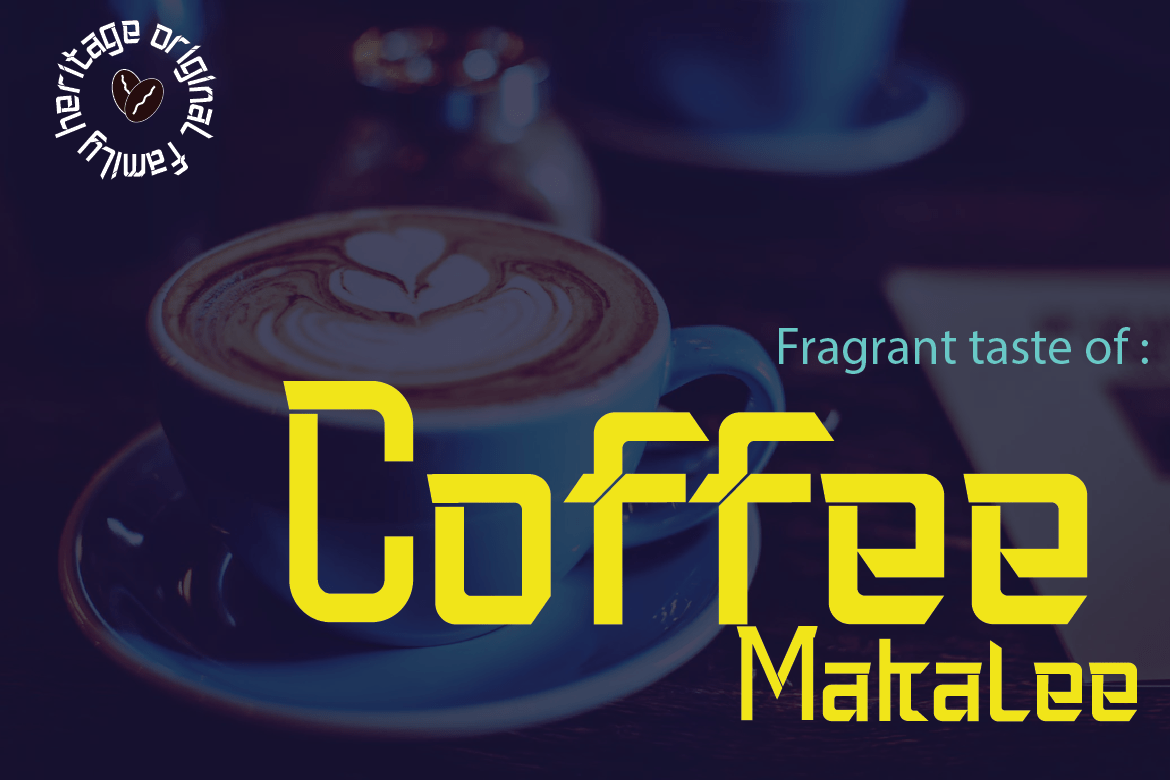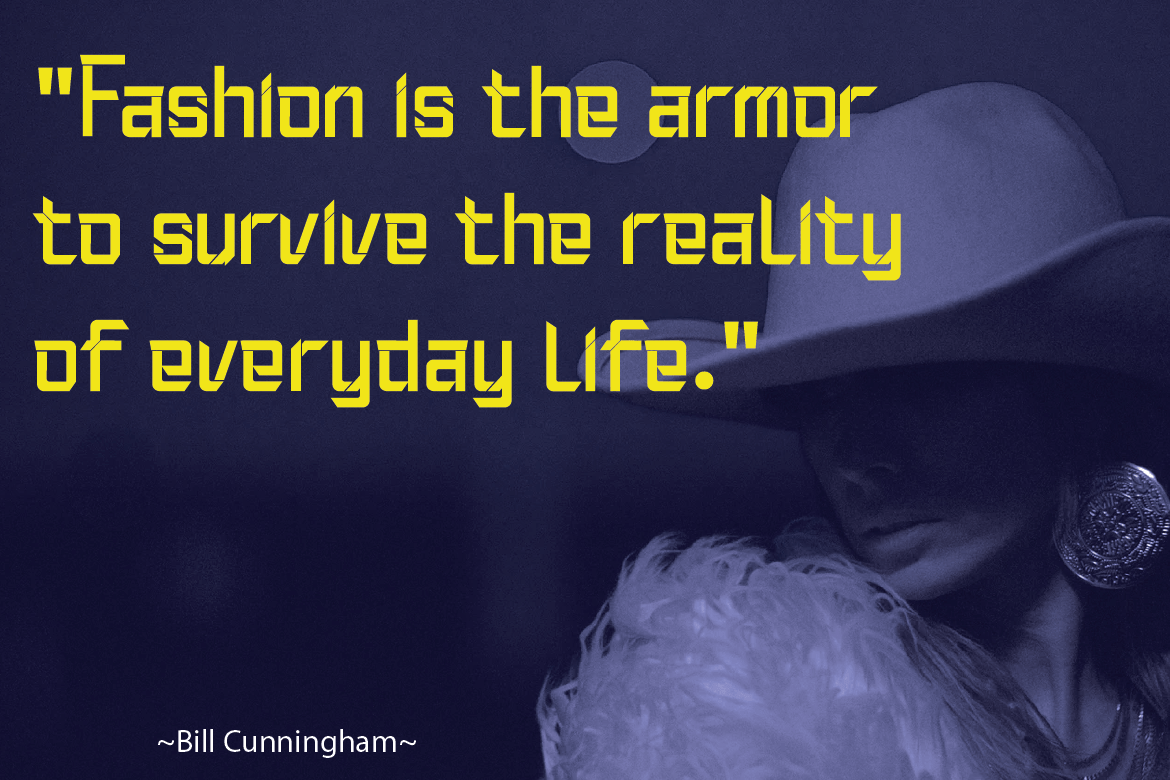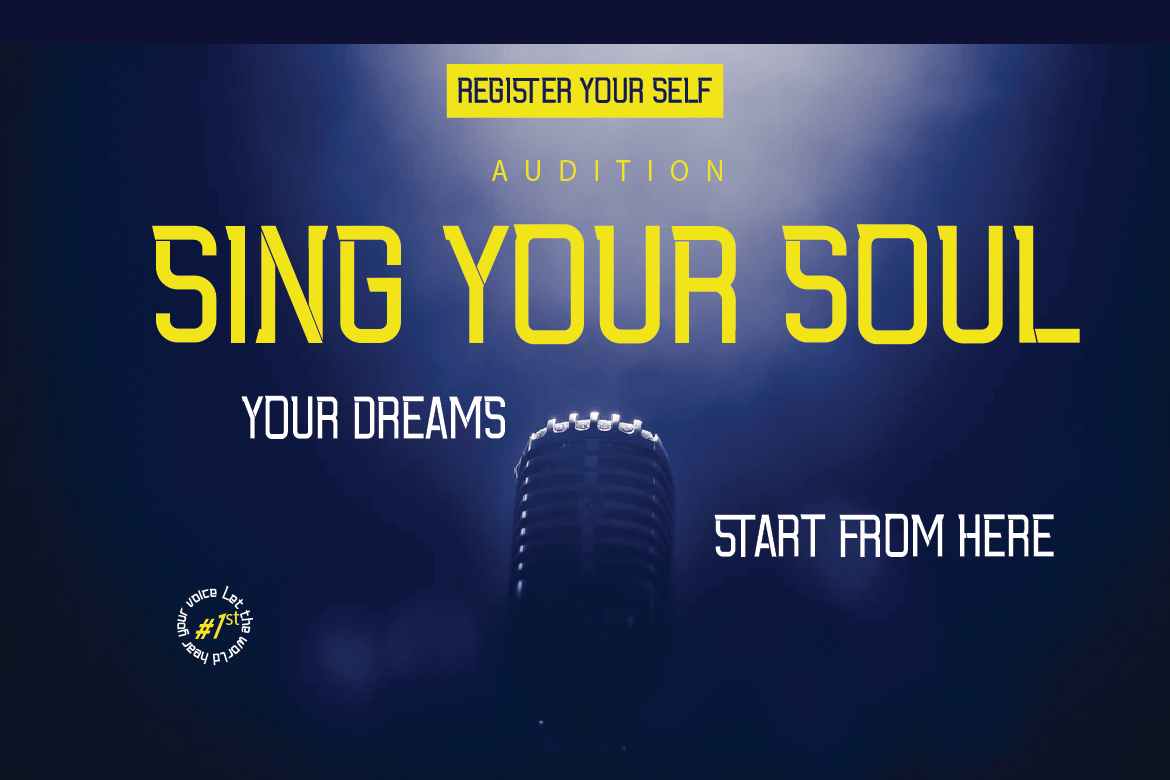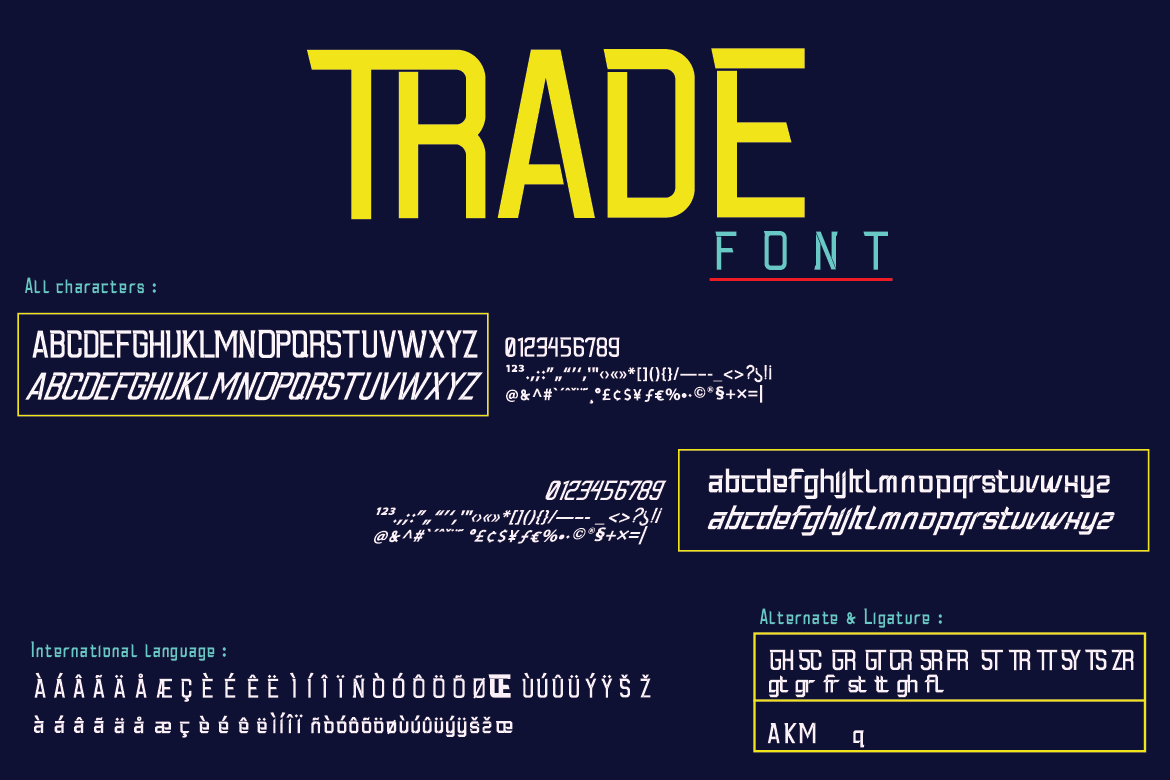
TRADE Font
TRADE Display Font
This is a cool and bold display font. Expertly designed to make your creation look out of this world, this font will look gorgeous on a variety of ideas.
This font is ideal for writing web designs, business cards, or pretty much anything else that requires a unique touch.